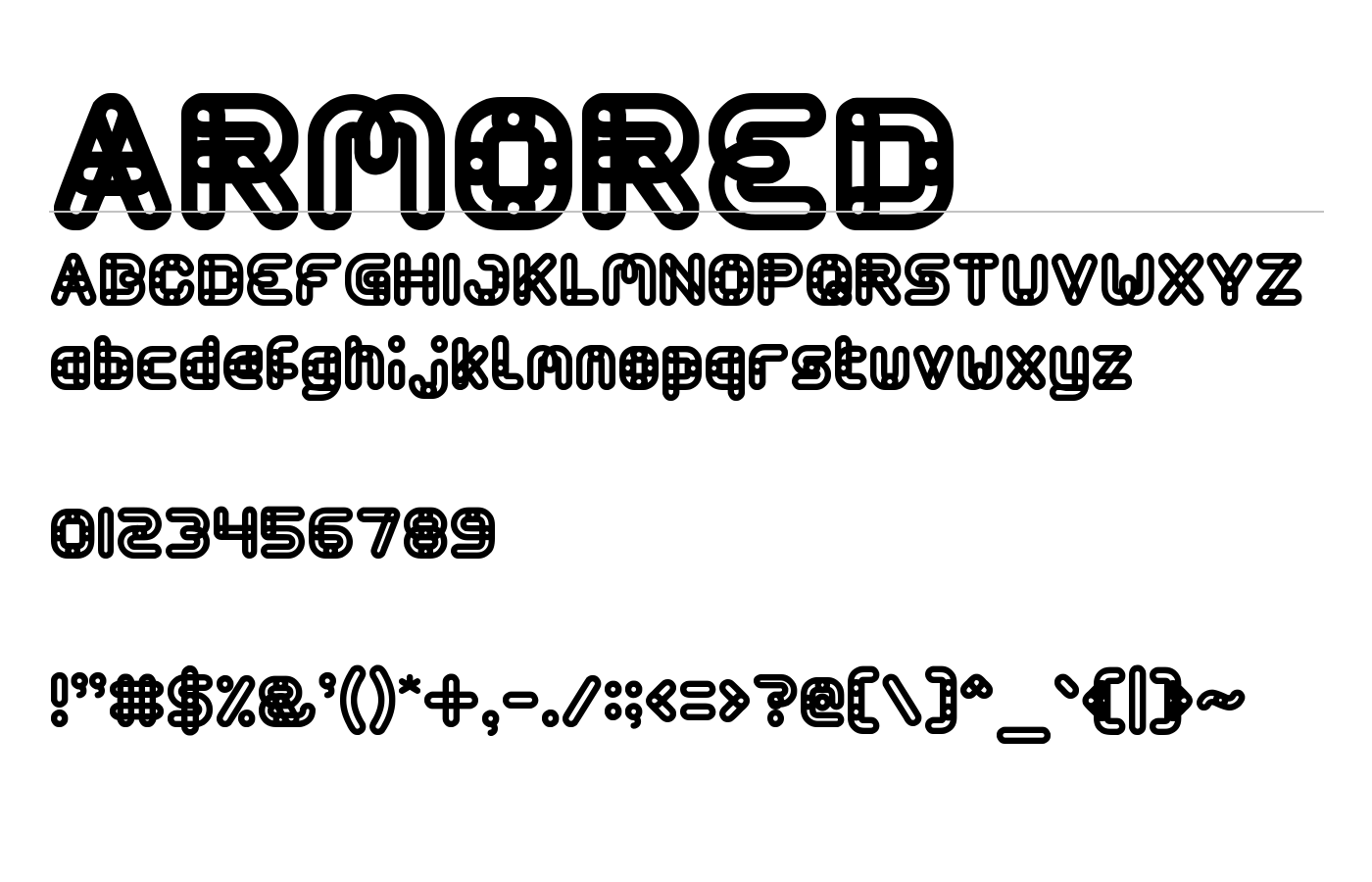
ARMORED is a bold, geometric sans serif font featuring a unique stencil-like design with rounded corners and evenly spaced breaks, giving it a modern and industrial feel. Its high x-height and uniform stroke weight create strong legibility, making it ideal for striking headlines, logos, and branding that require a futuristic, tech-inspired look. This font works best for projects seeking a blend of boldness and creativity with a touch of mechanical precision.
ARMORED Font
About ARMORED Font